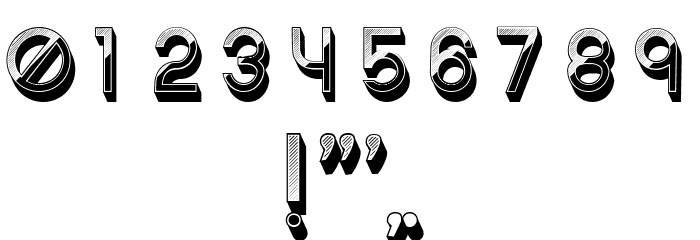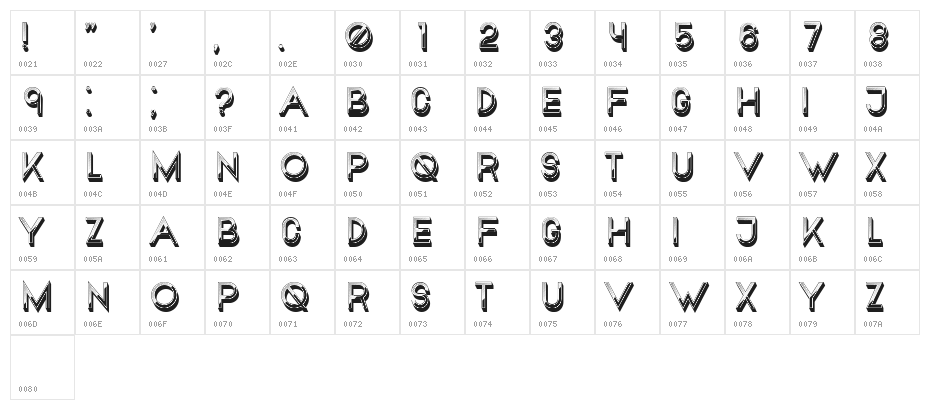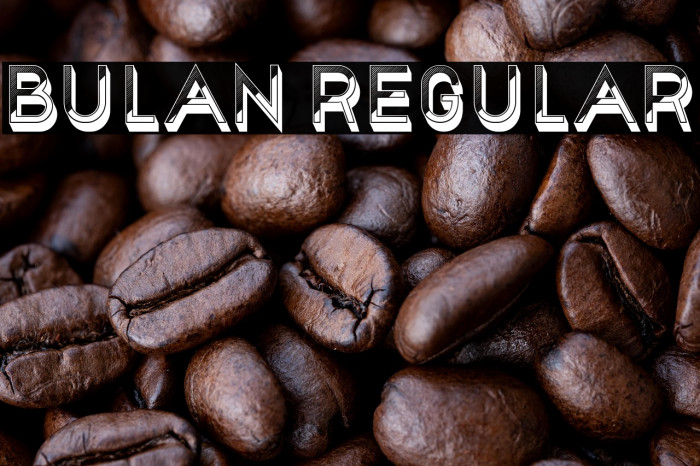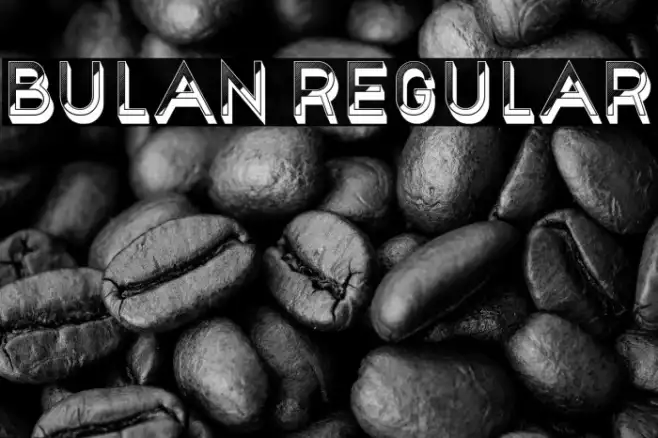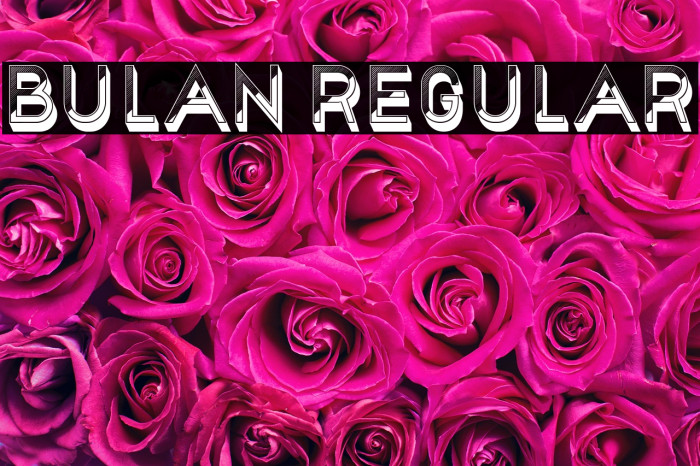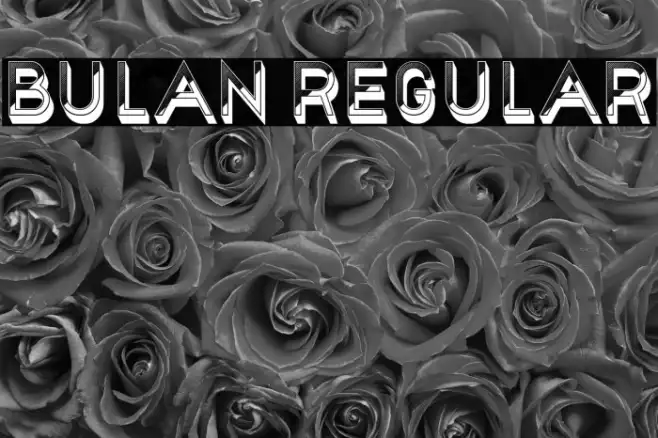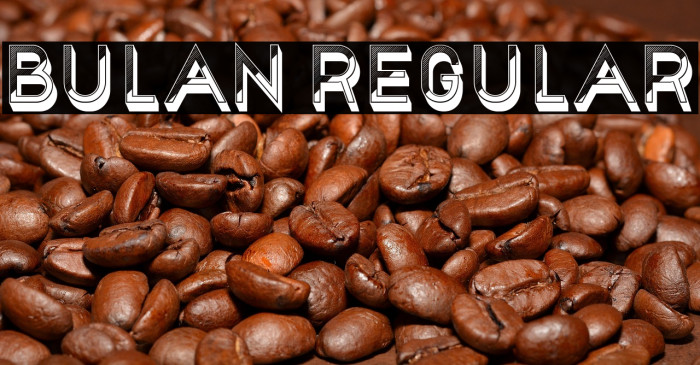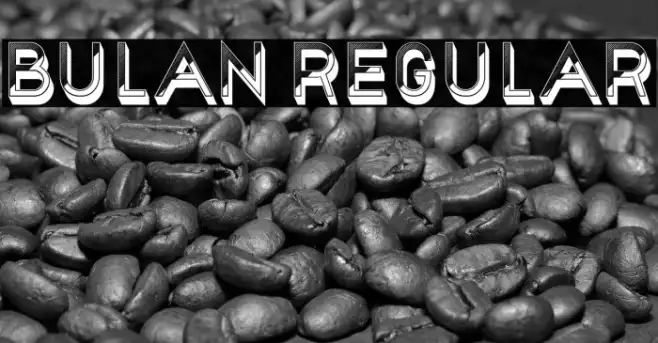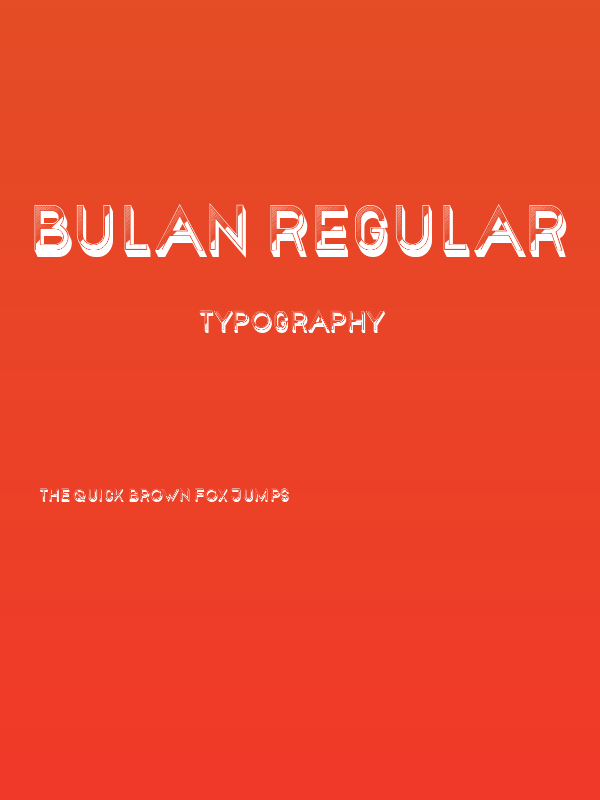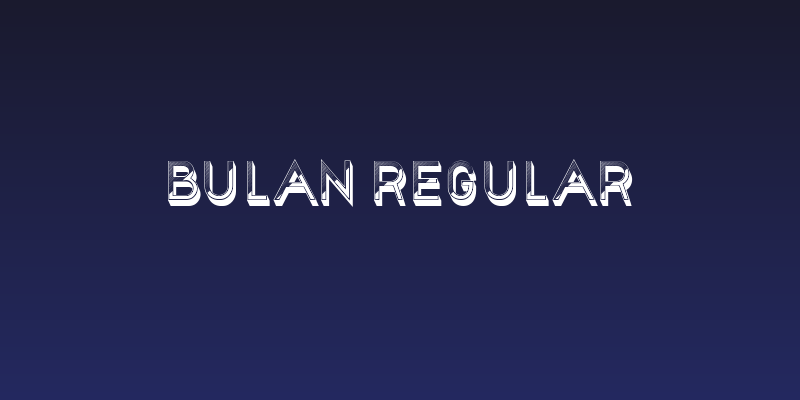
Bulan Regular Font
Bulan Regular Description
This font features a bold, three-dimensional style with a distinct shadow effect that gives each character a sense of depth and dimension. The uppercase letters are strong and geometric, with sharp angles and clean lines. The numbers and special characters maintain the same bold, shadowed style, ensuring consistency across all glyphs. This font is highly decorative, making it ideal for attention-grabbing designs. The unique shadowing adds a layer of complexity and visual interest, making it suitable for projects that require a standout typographic element.
| Proposed Projects | Ideal for posters, headlines, logos, and any design that requires a bold, eye-catching font. |